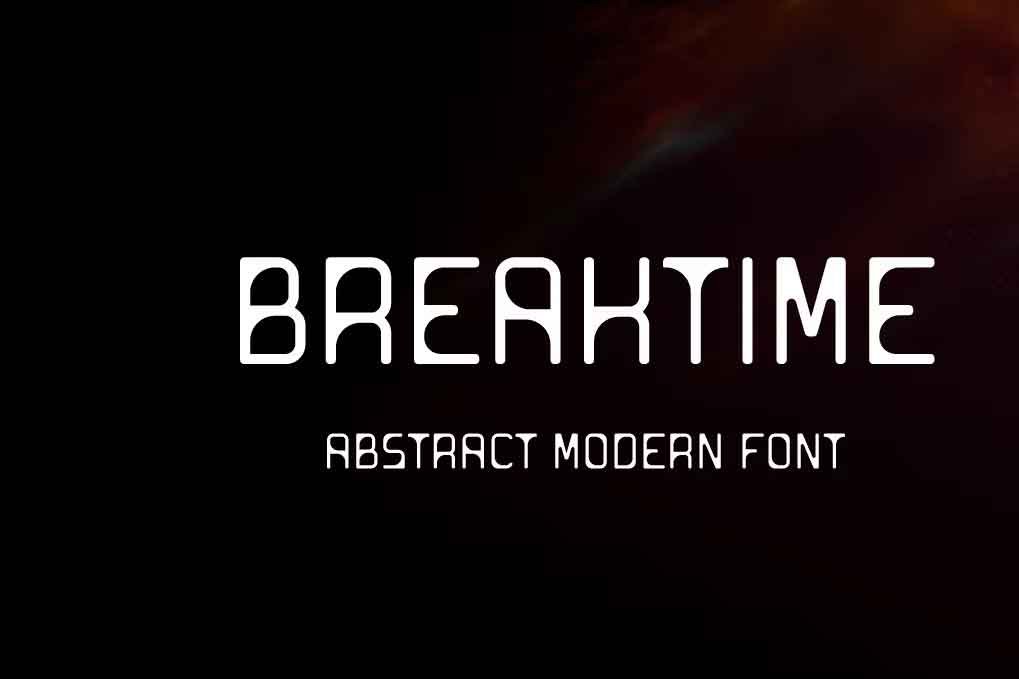
Breaktime Font
If you are looking for a abstract but modern font, meet BREAKTIME Breaktime is perfect for any works, such as card, book title, headline of news, banner, flyer, stationery and many more. It also can be used in large-scale work.
Breaktime Font is a Sans Serif Fonts font that brings a professional and versatile look to your projects. If you are looking for a abstract but modern font, meet BREAKTIME Breaktime is perfect for any works, such as card, book title, headline of news, banner, flyer, stationery and many more.